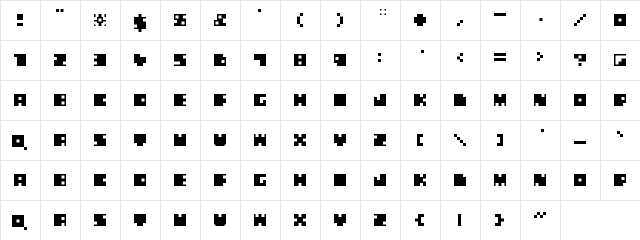
blablabla Regular Font Preview
blablabla Regular
blablabla Regular Font Details
| Designer | franta |
Design Context for blablabla Typeface
blablabla takes a measured approach to typography — its balanced proportions and neutral character make it a reliable workhorse for both digital and print work.